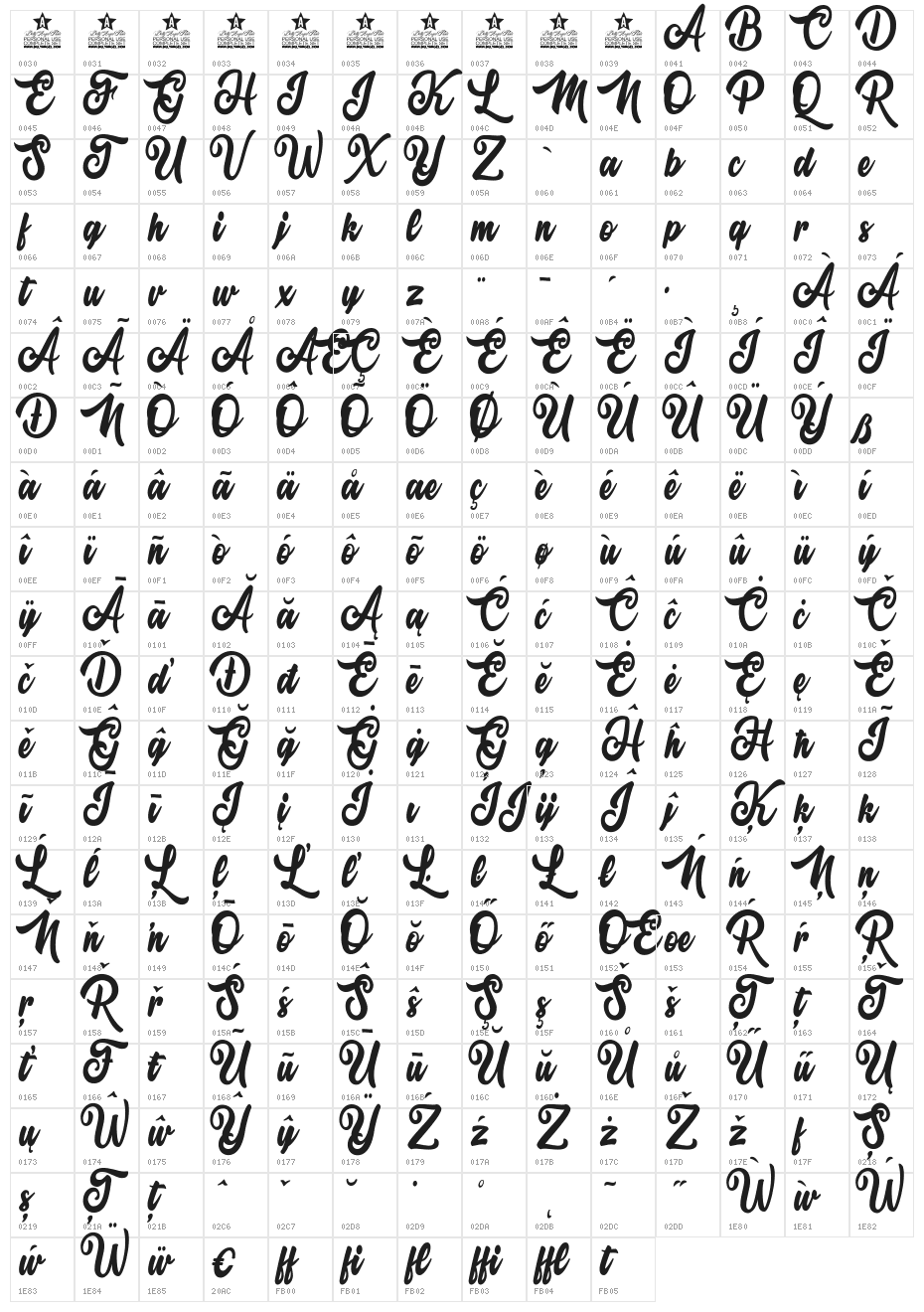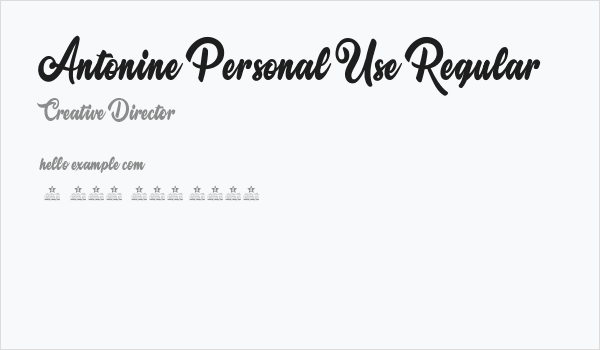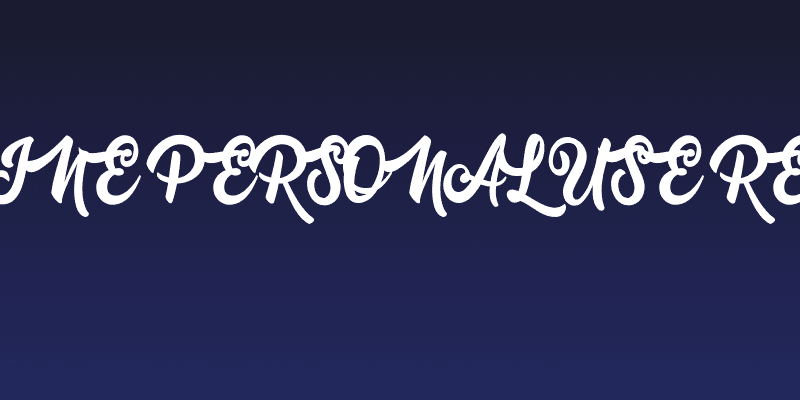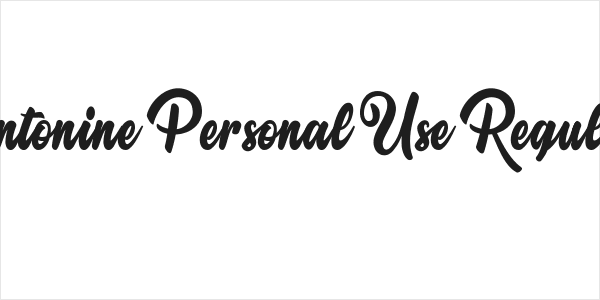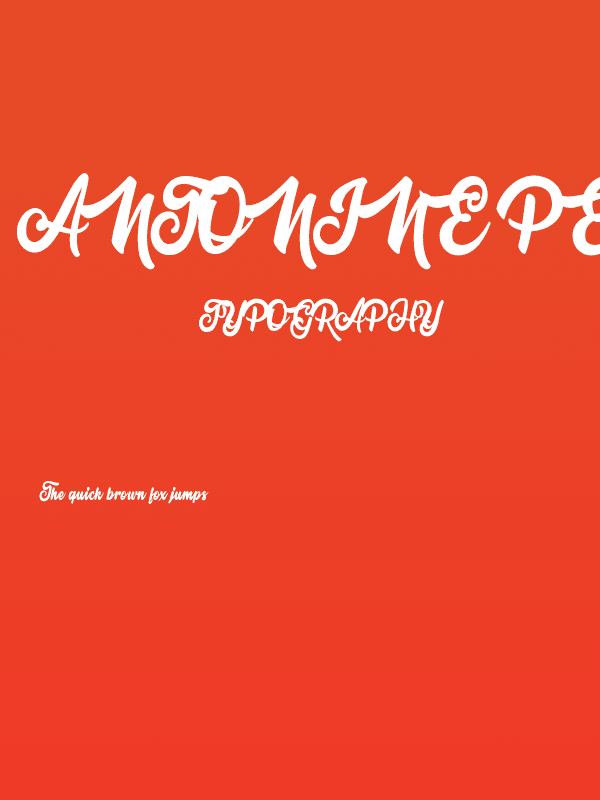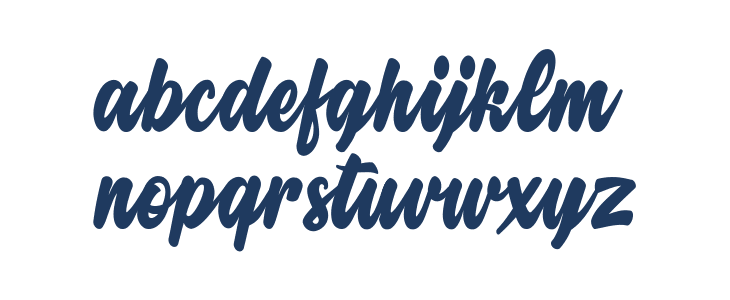
Antonine Personal Use Regular Font
Antonine Personal Use Regular Description
This font features a bold, cursive style with a strong emphasis on fluidity and elegance. The uppercase letters showcase intricate loops and swirls, giving them a decorative flair, while the lowercase letters maintain a consistent, flowing script. The overall design is dynamic and expressive, making it suitable for creative and artistic projects. The characters are closely spaced, enhancing the connected, handwritten appearance. The font's bold weight and high contrast between thick and thin strokes add to its striking visual impact.